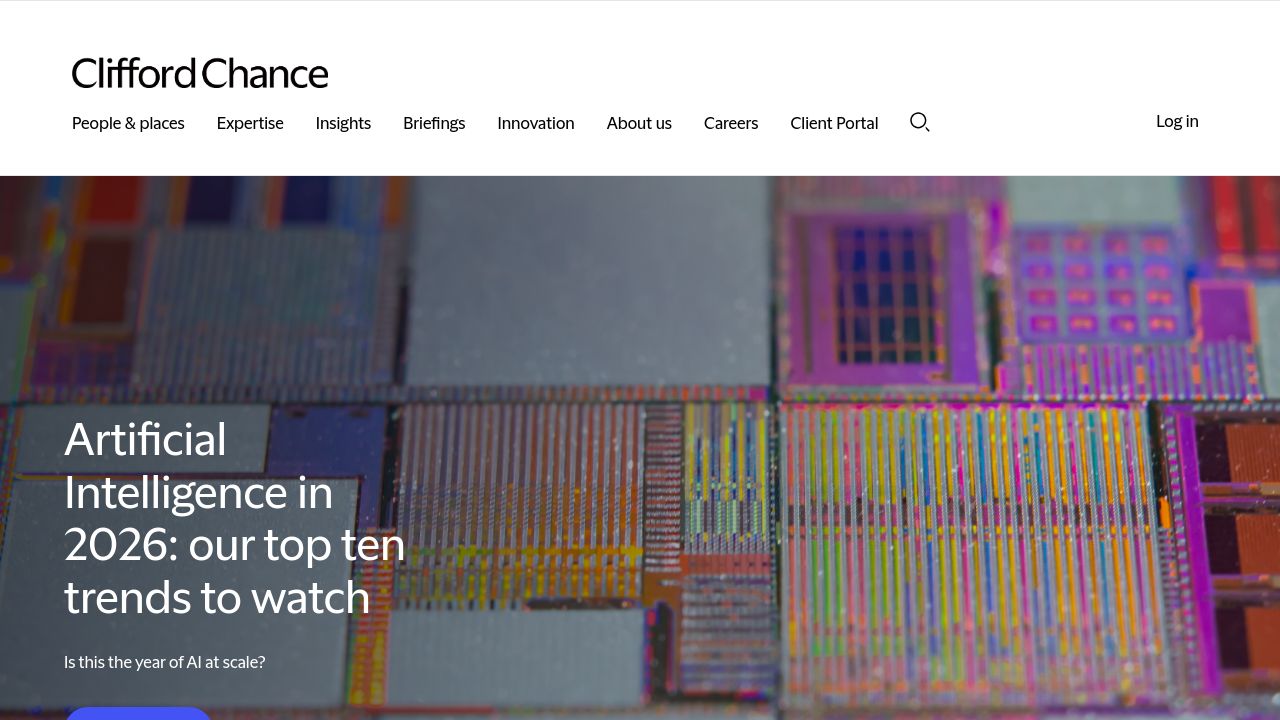
What fonts does Cliffordchance use?
Clifford Chance, a leading global law firm, utilizes a diverse range of fonts to reinforce its authoritative presence in the legal industry. Notably, they employ Arial for its accessibility, along with custom fonts like CliffordChanceVariableVF and HelveticaNeueW02-75Bold, which contribute to a cohesive and recognizable brand identity. These font choices reflect their commitment to clarity and precision, resonating with their audience of corporate clients seeking trustworthy legal guidance.
Frequently asked questions about Cliffordchance.com's fonts
What fonts are used on cliffordchance.com?
Clifford Chance uses several primary fonts, including Arial, Helvetica, and custom fonts like CliffordChanceVariableVF and HelveticaNeueW02-75Bold.
How do the fonts on cliffordchance.com compare to other law firms?
Clifford Chance's use of Arial and custom Helvetica fonts offers a clean and structured look, distinguishing it from firms that may opt for more stylized typefaces.
What styles and weights are used in their typography?
Clifford Chance primarily uses regular weights (400) for their fonts, including Arial and various Helvetica styles, ensuring consistency in their visual identity.
Why does Clifford Chance use custom fonts?
Custom fonts like CliffordChanceVariableVF help create a unique brand identity, enhancing recognition while maintaining professionalism in their communications.